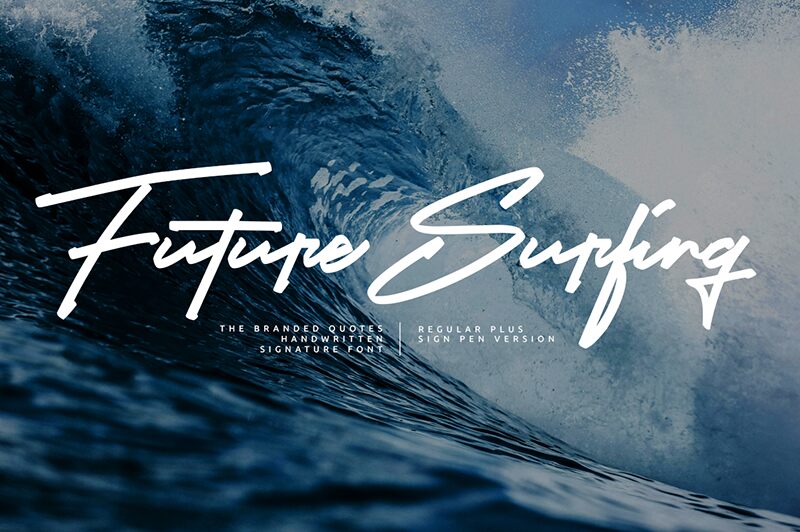
Future Surfing (Personal Use)
Future Surfing font is a bold handwritten type designed by The Branded Quotes with a signature style. Freeform and expressive, it was meant to show stylish and contemporary design applications. It was heavily influenced by Surfskate and Electric Dirt Bikes that combine elements from both styles into one energetic, artistic unit.
The free handwritten font is perfect for branding identity, logo initials, advertising banners, fashion projects, invitation cards including weddings or birthdays, packaging designs especially models connected with nature or beauty products; album covers; branded booklets; magazines - particularly front pages!
Try typing these examples to explore the included swashes:
Ultraviole)t
Industrie}s
Smoothcar{ve
Mera_ki